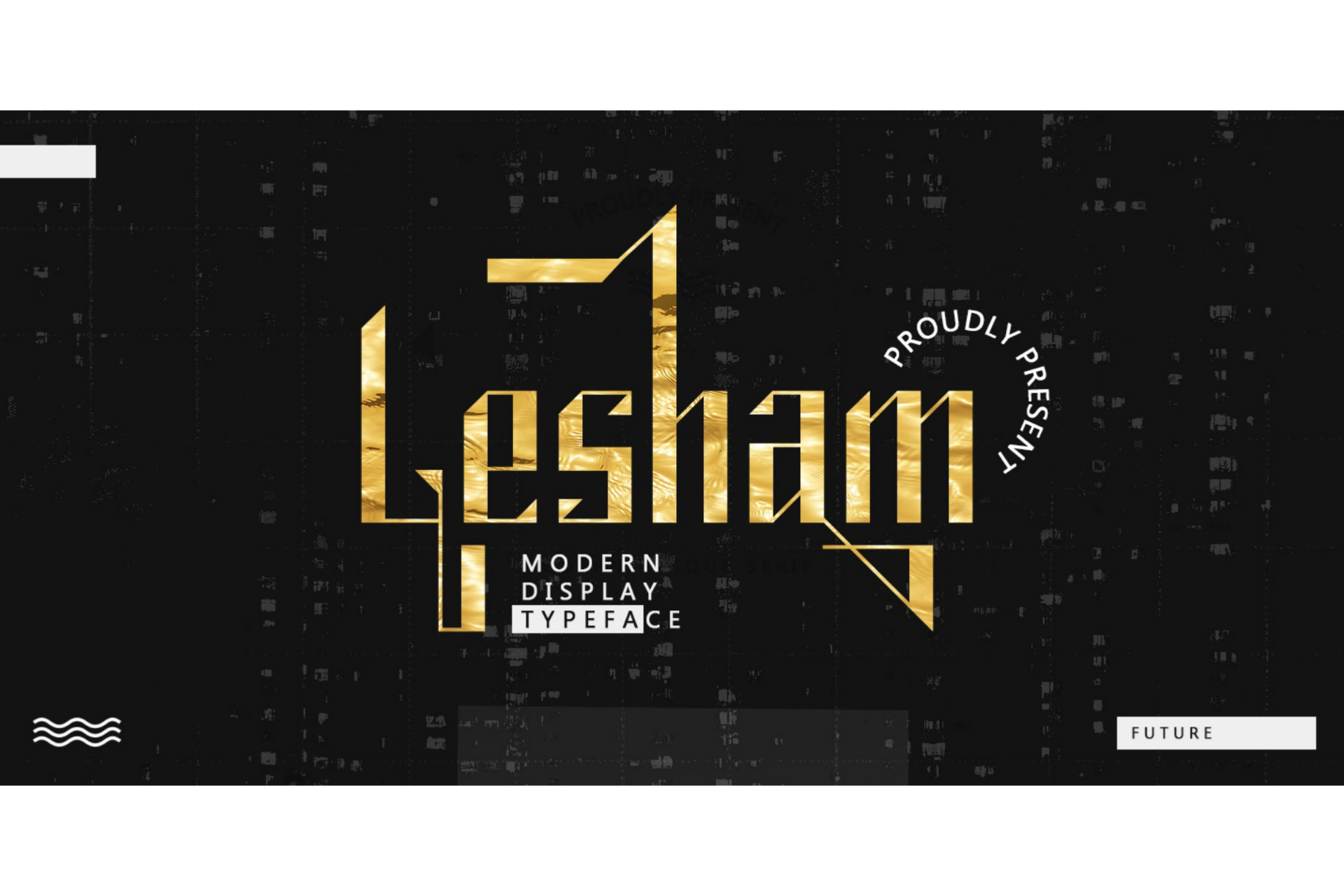
Lesham - Modern Display Font
Lesham fonts include uppercase, lowercase, numbers, alternative, and puch. This modern look typeface is made for posters, web design, branding, illustrations, badges, shirt designs and several other works.